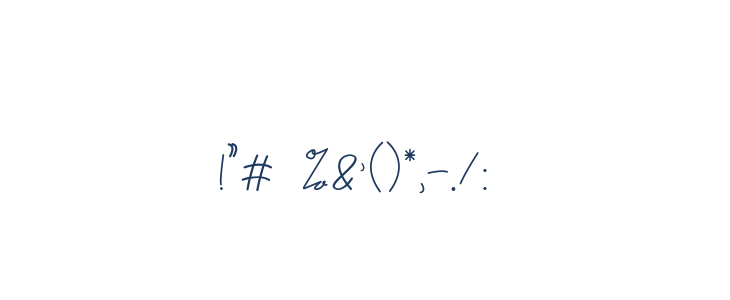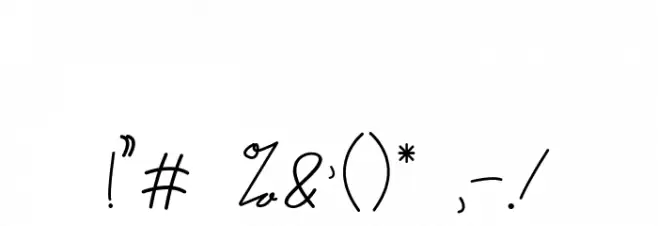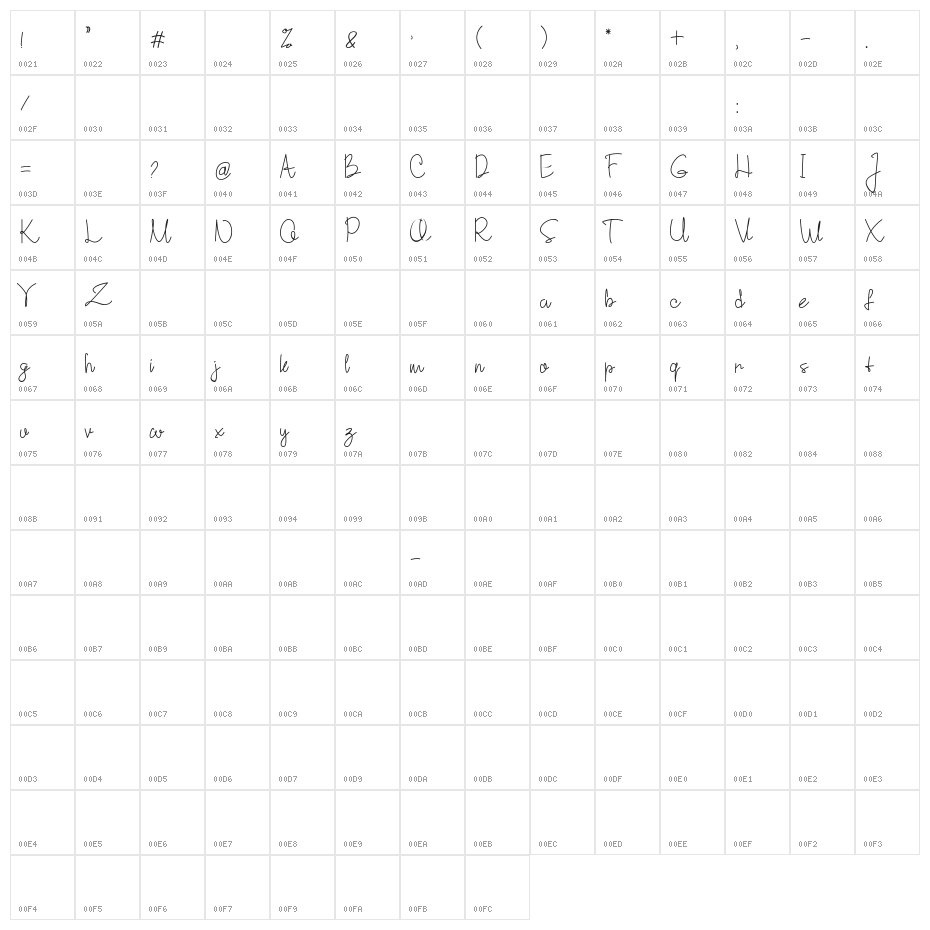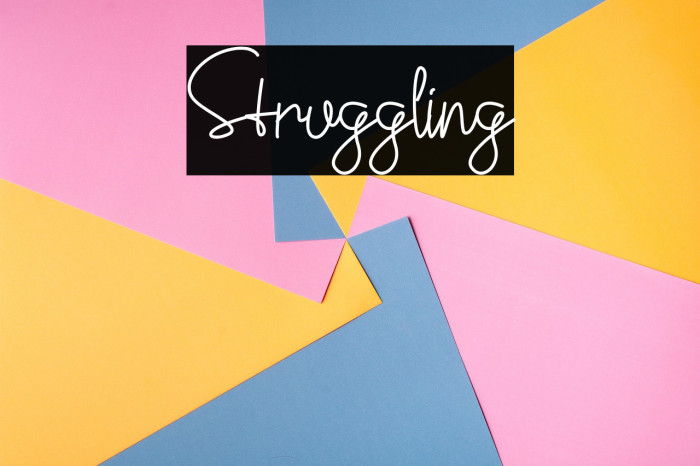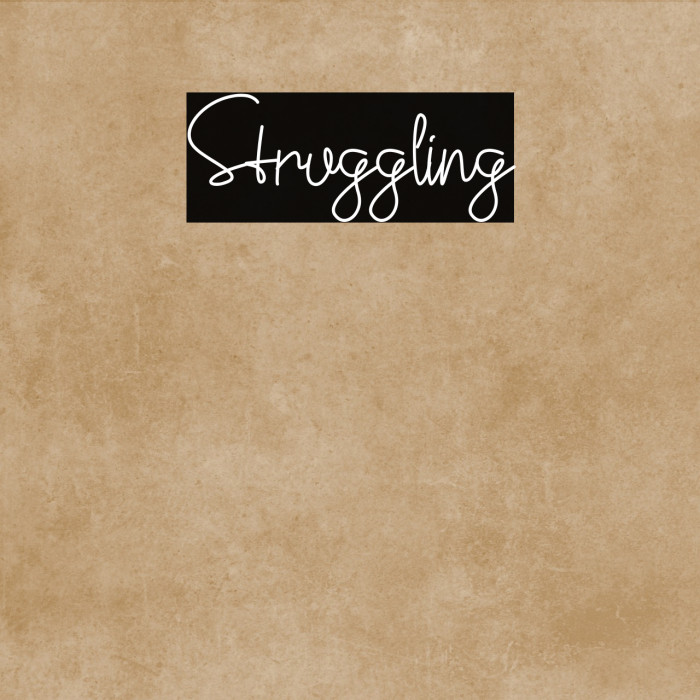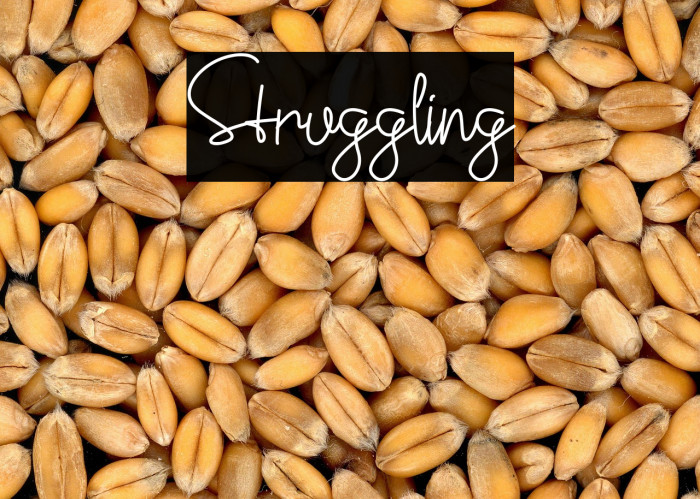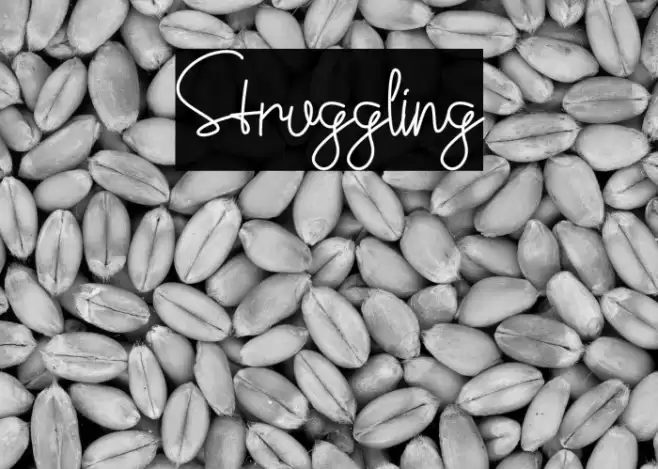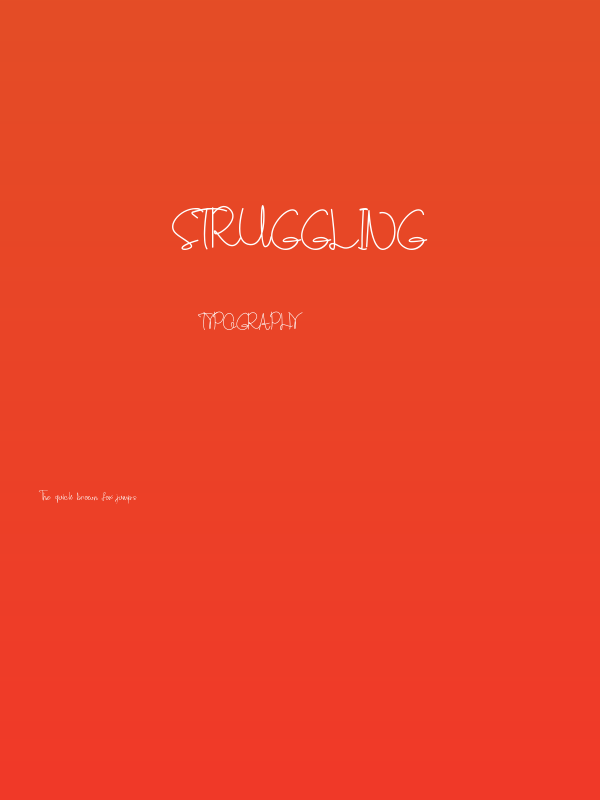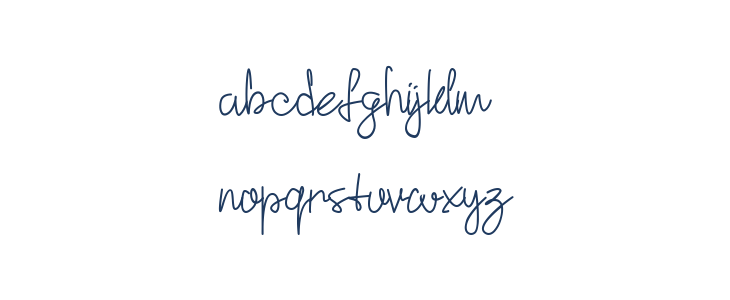
Struggling Font
Struggling Description
This font features a playful and whimsical handwritten style, characterized by its flowing and interconnected letterforms. The uppercase letters exhibit a tall and narrow structure, while the lowercase letters maintain a consistent fluidity, enhancing the overall casual and friendly appearance. The strokes are smooth and slightly irregular, adding a personal touch to the design. The special characters are creatively integrated, maintaining the font's cohesive aesthetic. This font is ideal for projects that require a personal, informal, and approachable feel.
Overall StyleCasual
Use CaseHeadlines, Invitations, Personal projects
Proposed ProjectsGreeting cards, personal branding, invitations, and casual social media graphics.